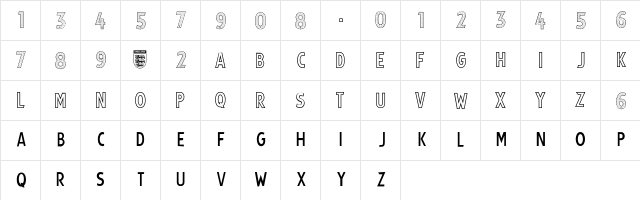
England2007 Regular Font Preview
England2007 Regular
Design Context for England2007 Typeface
England2007 takes a measured approach to typography — its balanced proportions and neutral character make it a reliable workhorse for both digital and print work.